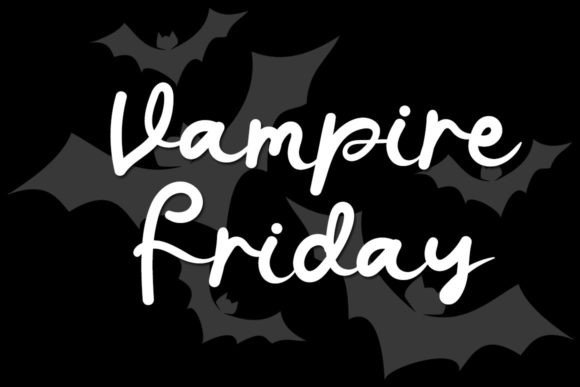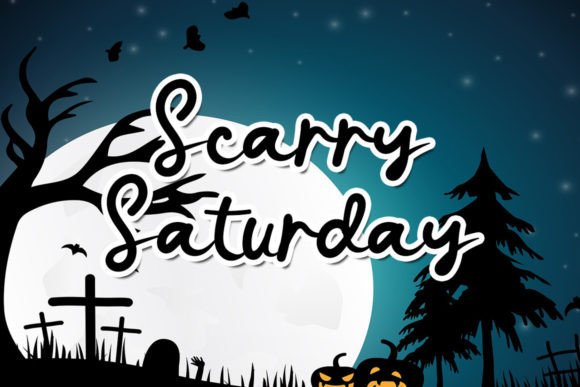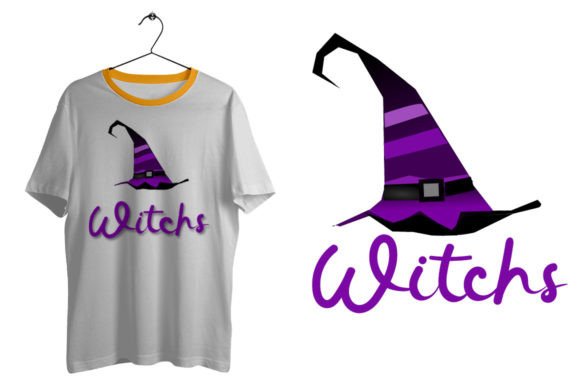
Introduction to Jacky Halloween Font
Jacky Halloween is a beautiful and sweet handwritten font.
Fresh, clean, and elegant, it will look amazing on a great number of projects, both formal and informal It will add an incredibly joyful touch to your designs.
Key Features of Jacky Halloween Font